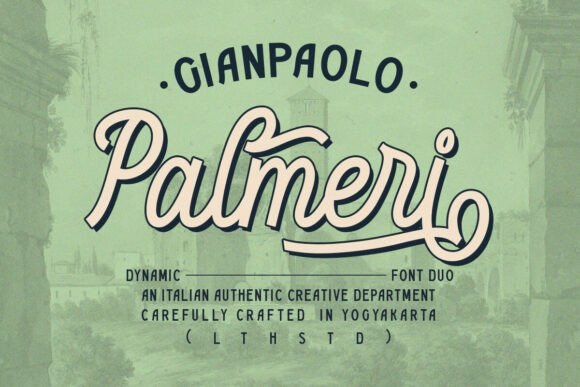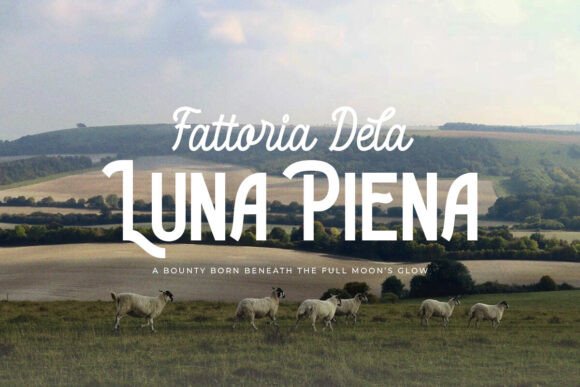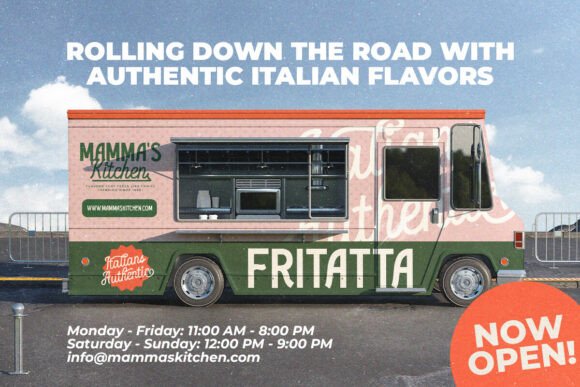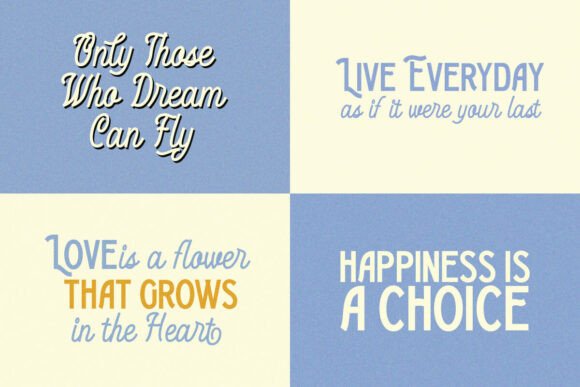
Gianpaolo Palmeri Duo Font
About the Gianpaolo Palmeri Duo Font
Elevate your designs with Gianpaolo Palmeri Duo Font, a font that combines sophistication with readability. Gianpaolo Palmeri is a dynamic and vintage-inspired font duo that combines bold, monoline script with strong, clean sans-serif lettering. Its smooth curves, stylish swashes, and subtle retro aesthetic make it perfect for branding, logos, packaging, posters, and editorial designs. Designed with a timeless Italian touch, this font exudes sophistication and authenticity, making it ideal for projects that need a blend of classic and modern appeal.
This duo excels in headline treatments, short-form text, and logo design, bringing a vintage-infused boldness to branding projects needing a touch of retro sophistication. It’s less suitable for lengthy body text or UI elements where legibility at smaller sizes is paramount.
The script offers a playful yet elegant counterpoint to the sans-serif’s clean lines. Pairing it with a geometric sans-serif like Futura for a modern feel, or a classic serif such as Garamond for a more traditional approach, will create visually appealing and balanced compositions. Consider using the script for branding elements and the sans-serif for supporting information.
Gianpaolo Palmeri Duo projects a confident, sophisticated personality, ideal for brands aiming for a timeless yet stylish image in sectors such as fashion, food & beverage, or boutique hotels. Its retro charm adds a layer of authenticity without appearing dated.
Gianpaolo Palmeri Duo Font Example